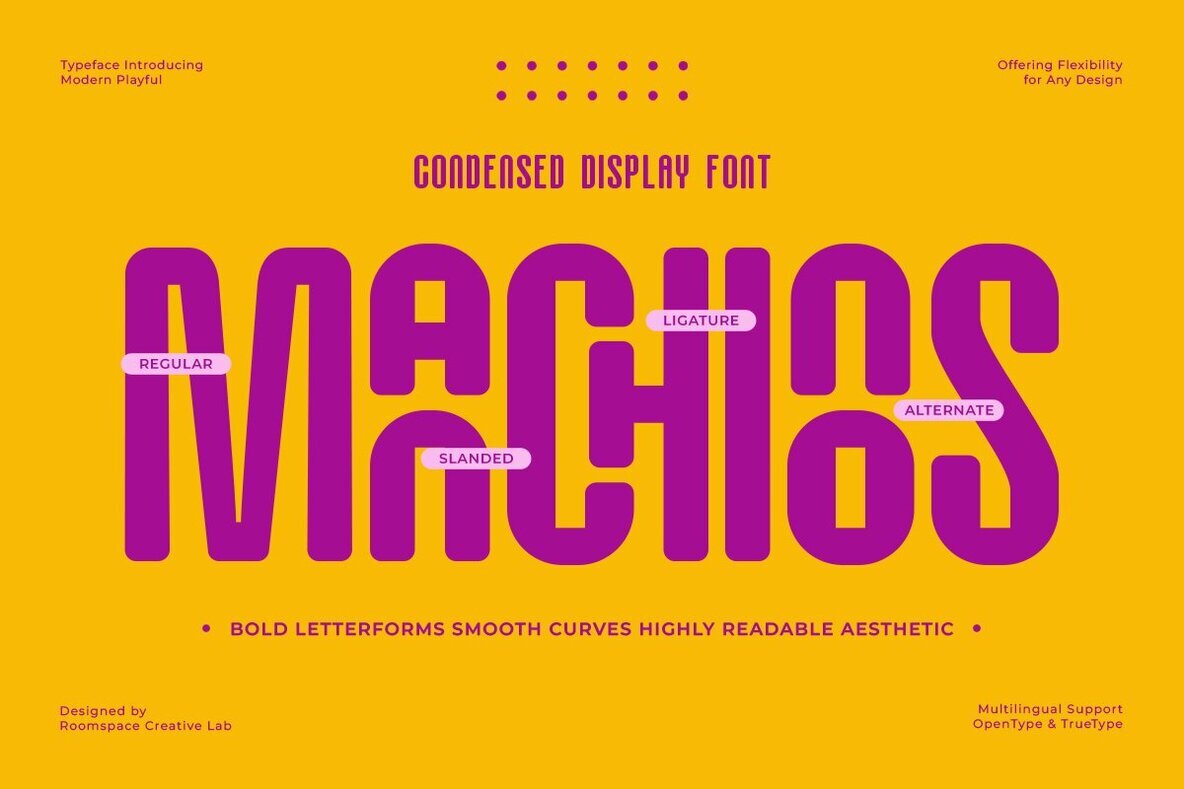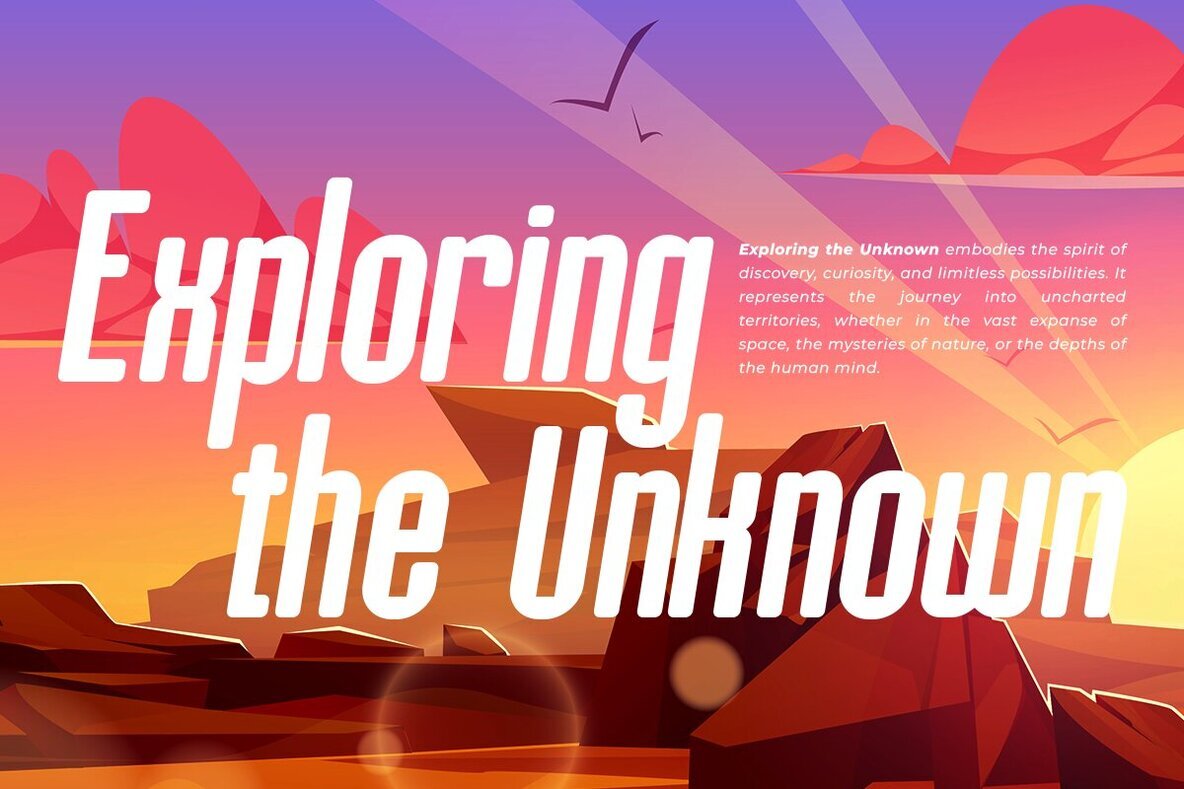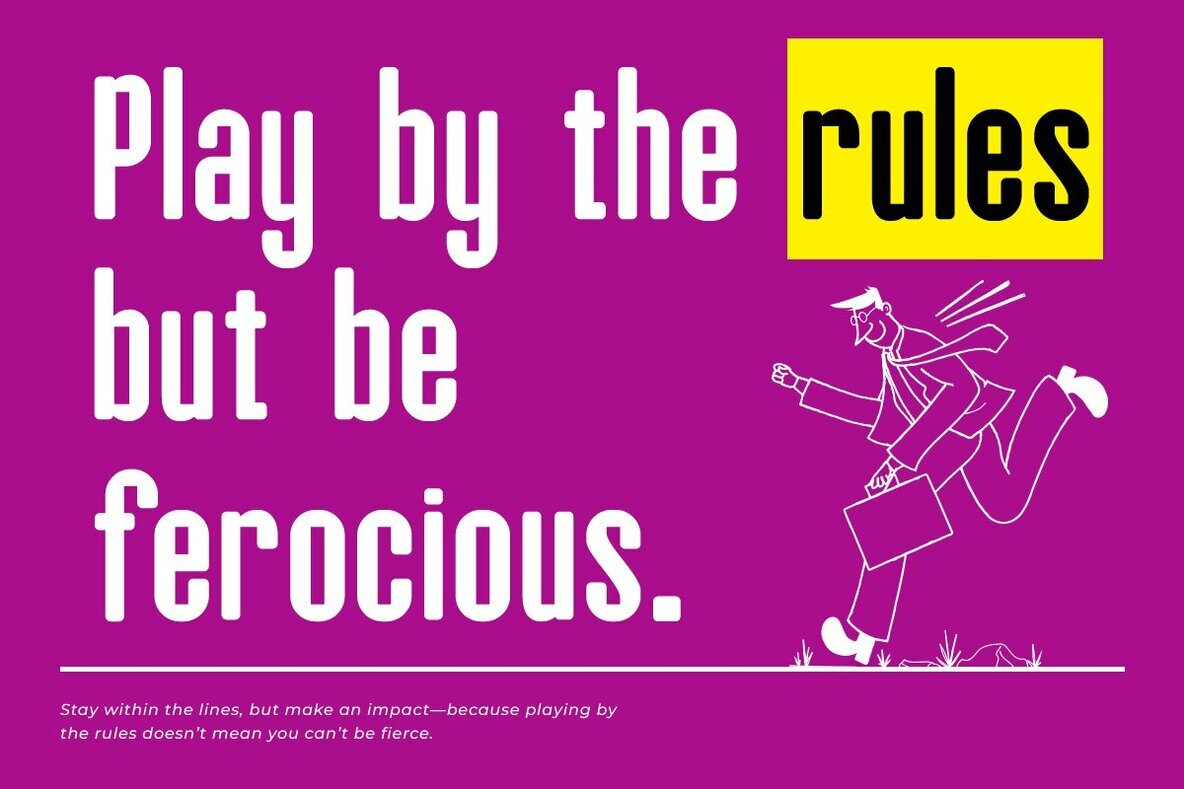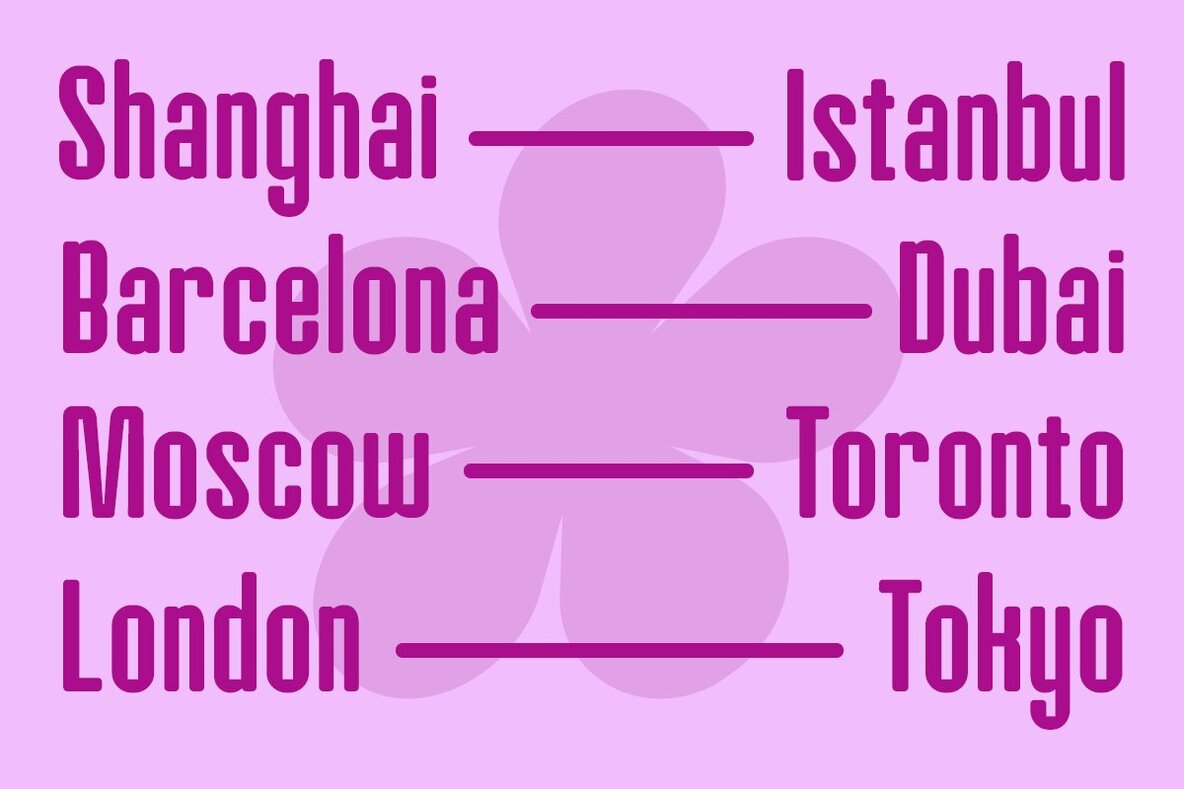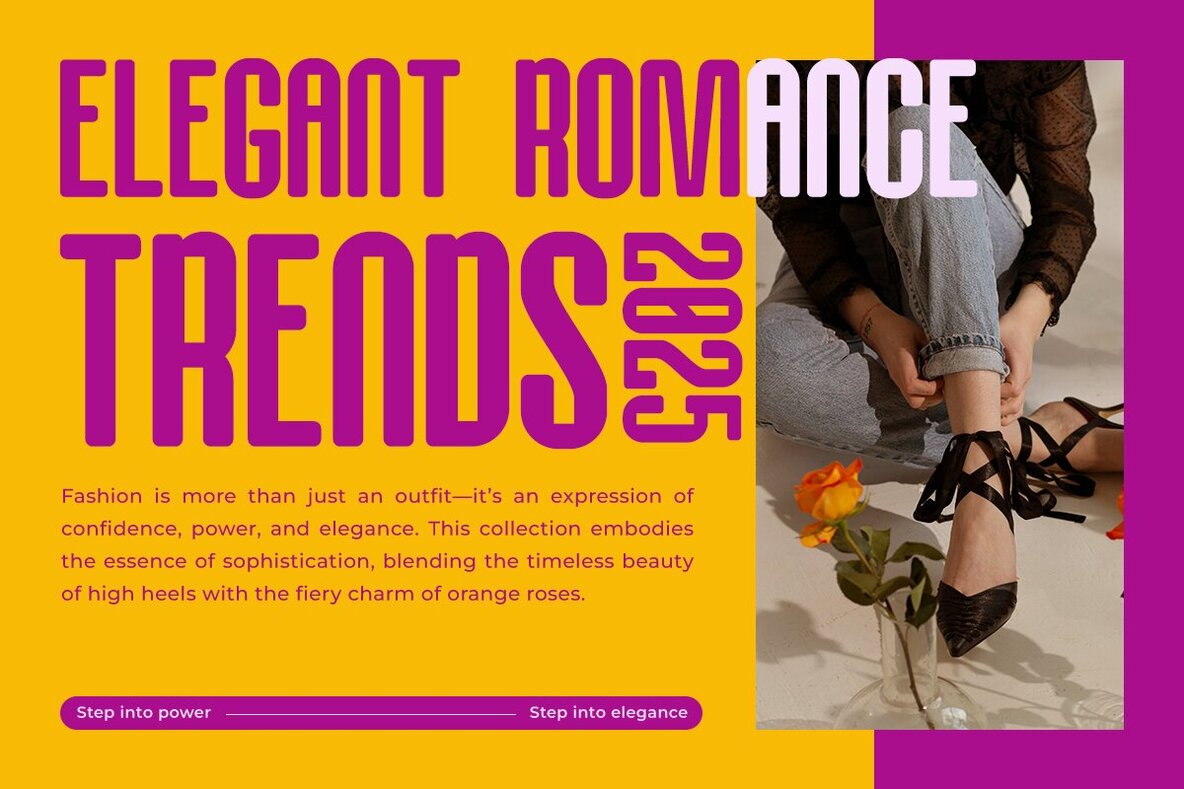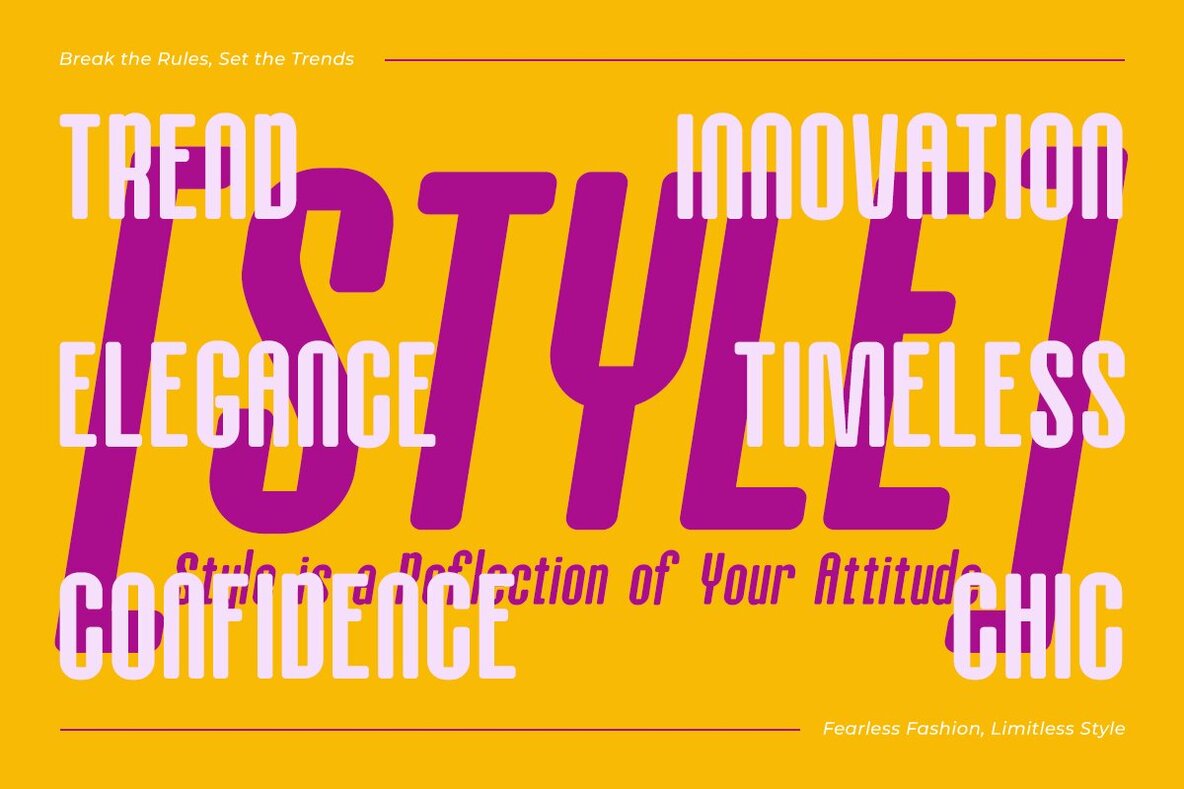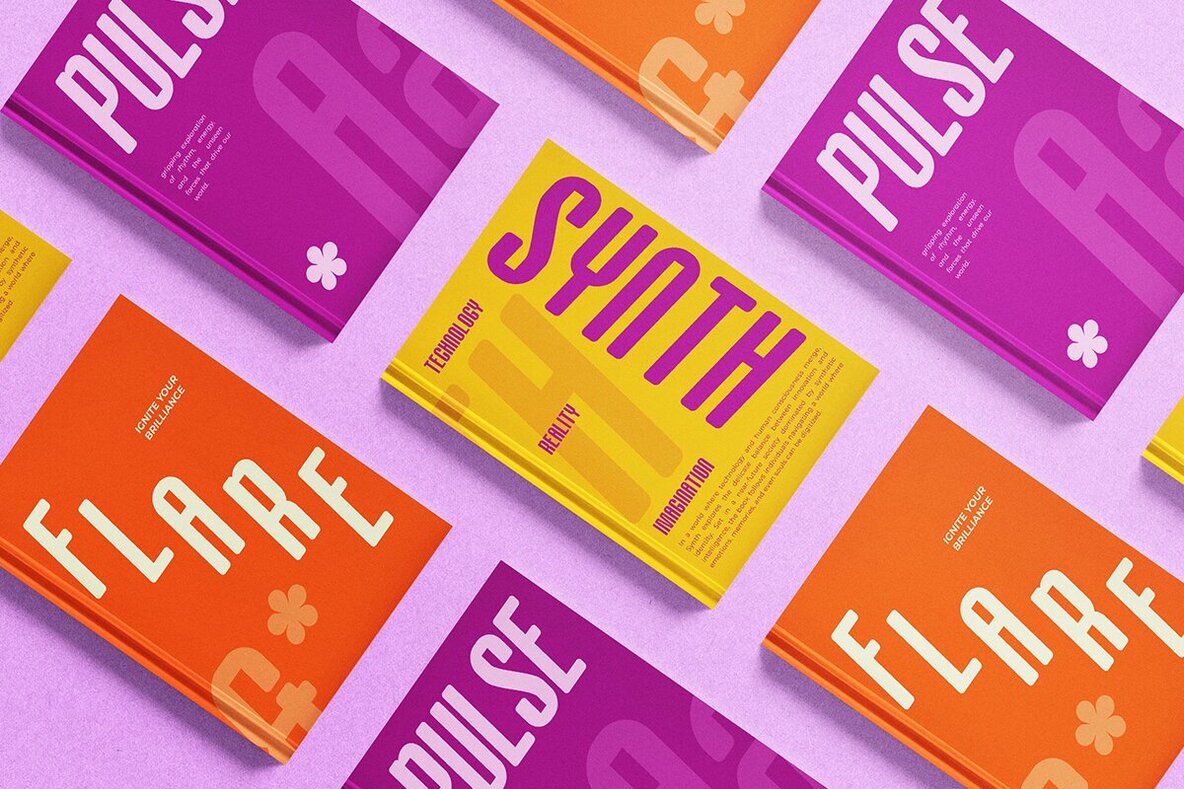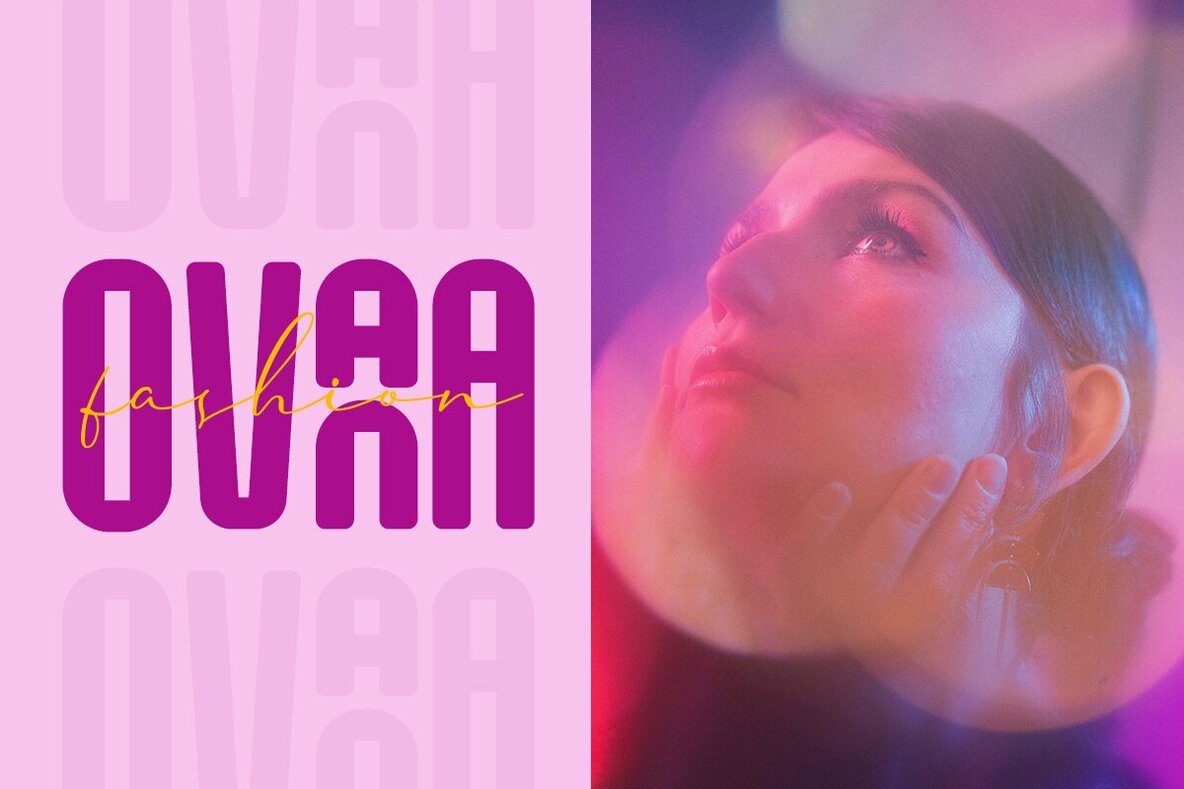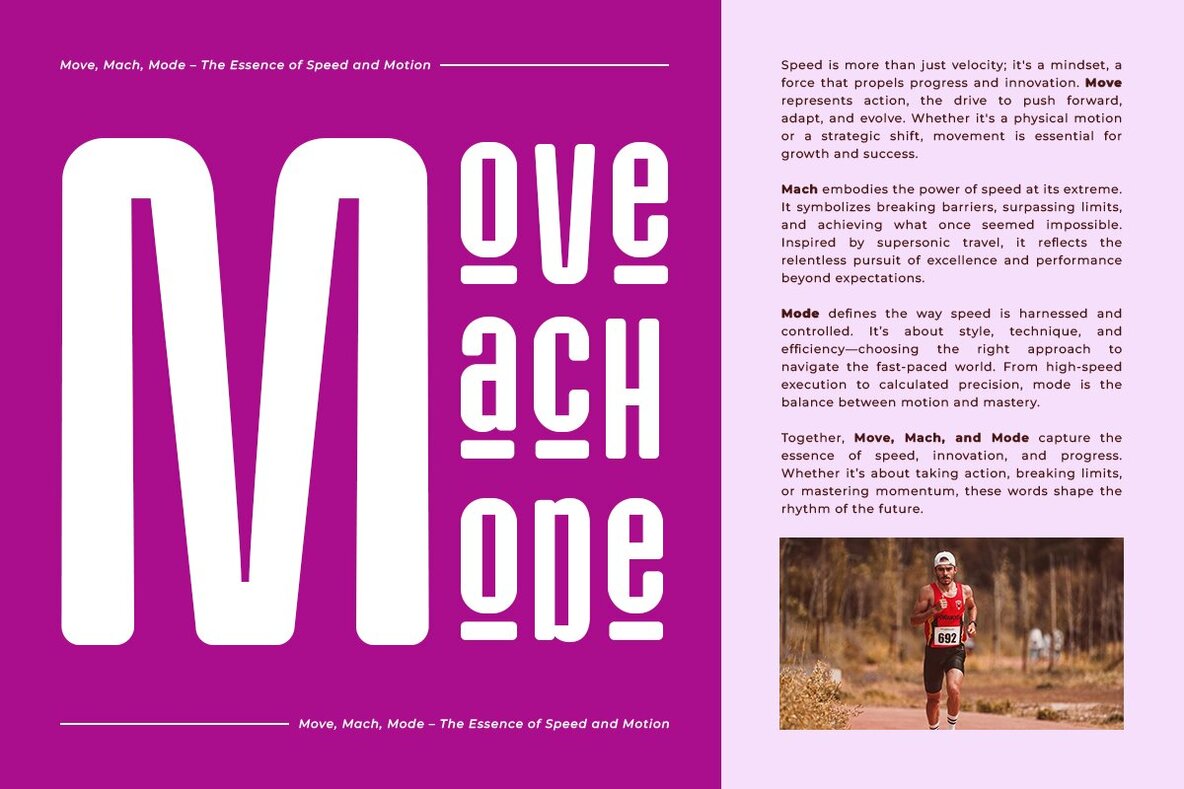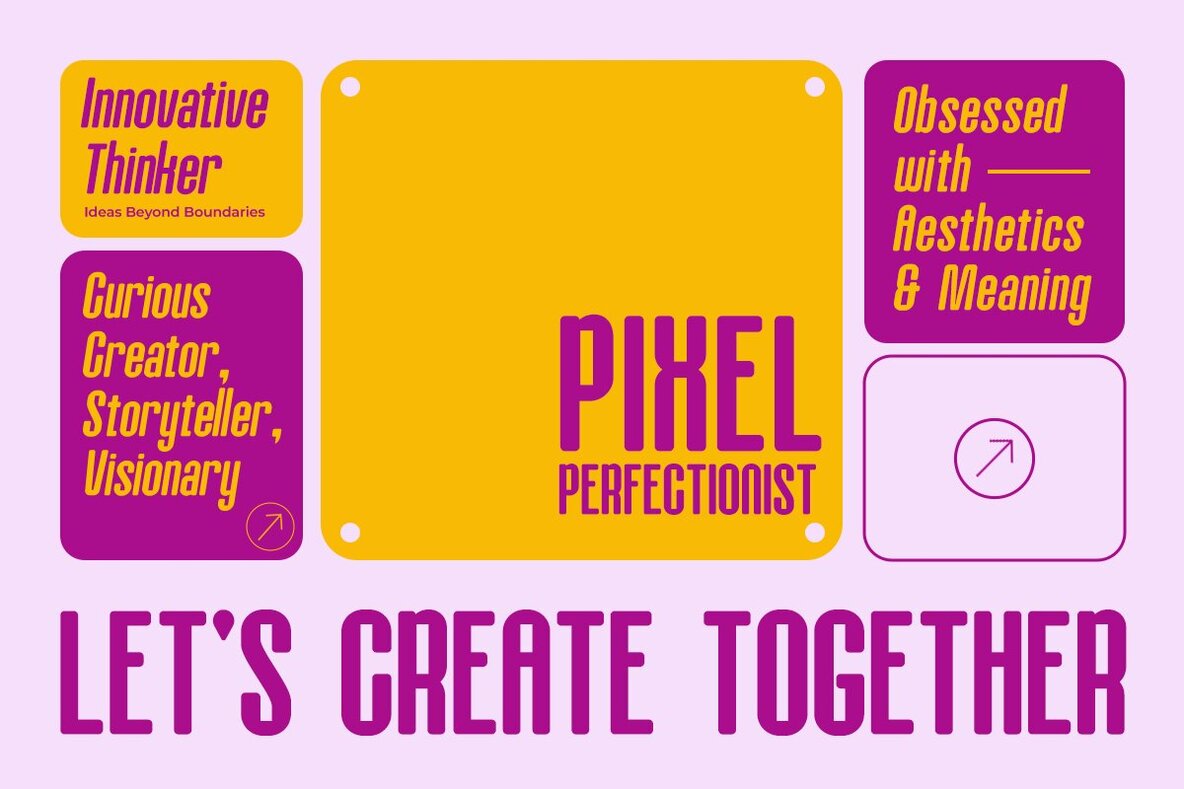
Manchinos Font
Manchinos, a Condensed Rounded Display Sans Serif font designed to bring a bold and modern touch to your creative projects. With its smooth curves, high readability, and unique letterforms, Manchinos is perfect for branding, headlines, posters, apparel designs, and more. Its bold yet elegant appearance, along with its ligatures, provides for an amazing design experience. Come with single weight, recognizable, and evocative shapes. Support: